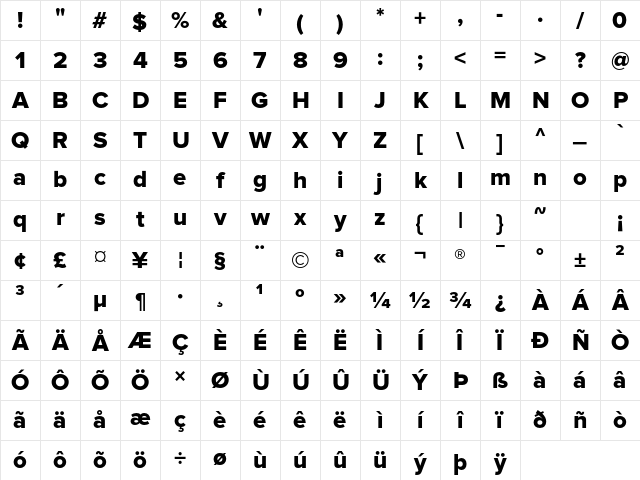
Proxima Nova Extrabold
Style: Extrabold
Designer: Mark Simonson
Complete Proxima Nova Extrabold glyph index. Displaying only characters natively supported by Proxima Nova Extrabold font.
Design Context for Proxima Nova
Proxima Nova is a composed and adaptable typeface that performs quietly and consistently across a wide range of design contexts. Its bold stroke weight gives it real presence on the page.